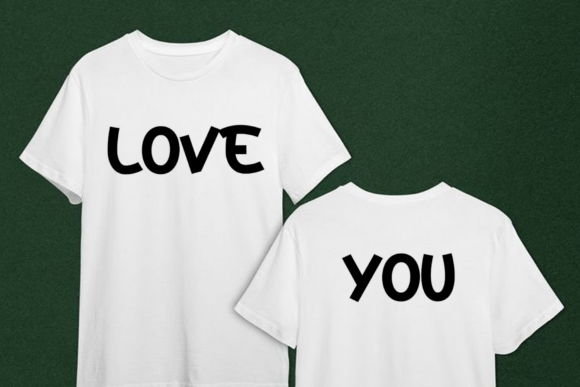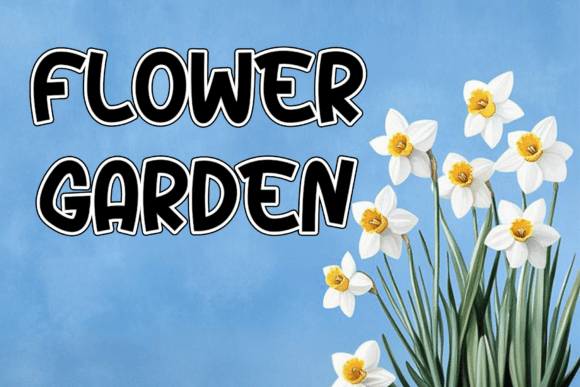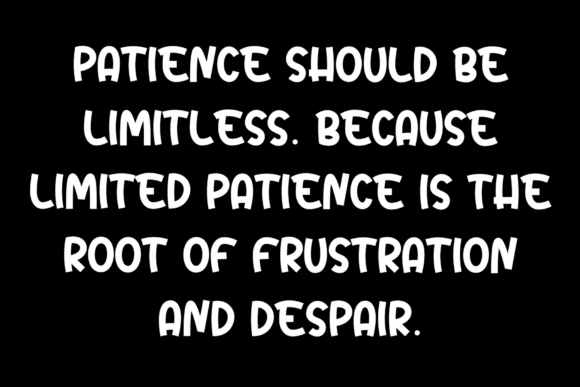
Introduction to Creative Magic Font
Creative Magic is a lovely and timeless handwritten font.
Key Features of Creative Magic Font
Why Choose Creative Magic Font?
Creative Magic Font offers exceptional quality and versatility, making it a valuable addition to your design toolkit. Whether you’re creating for personal projects or commercial use, Creative Magic Font delivers professional results.